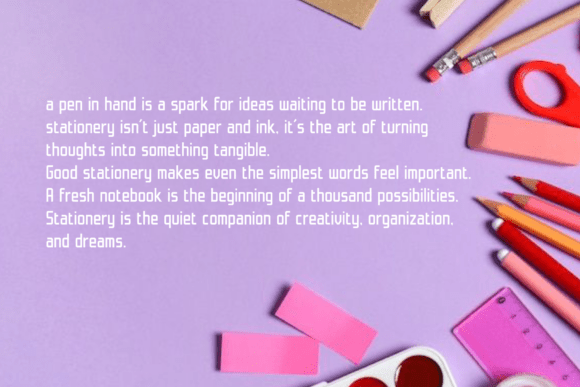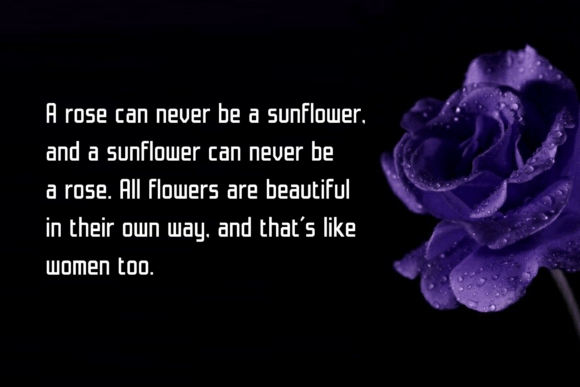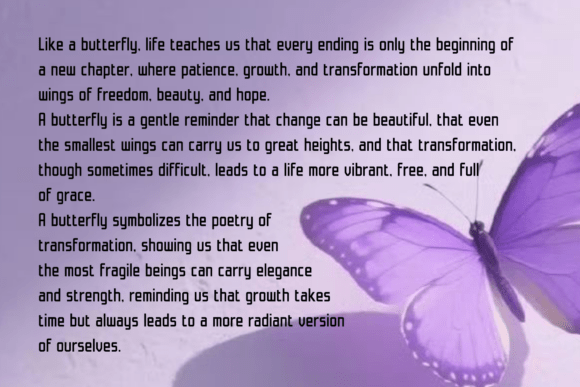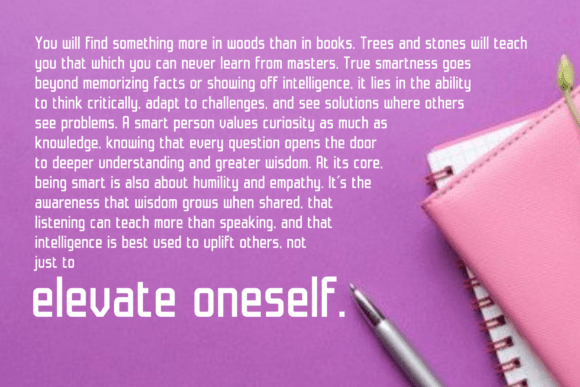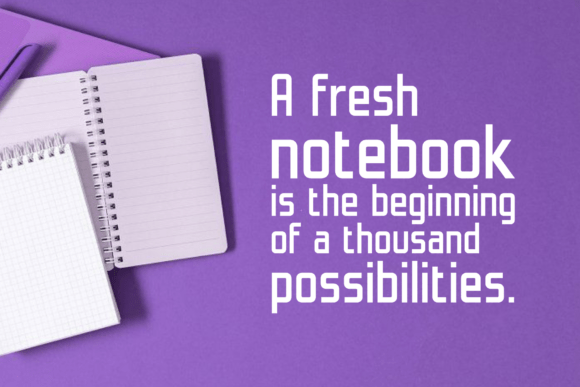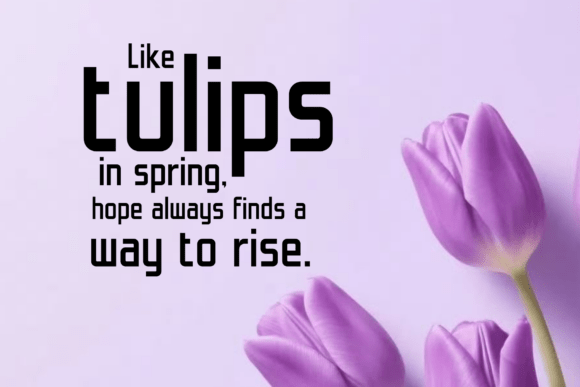
Designing for Impact: Introducing Astria Font
Have you ever stared at a blank canvas, searching for the perfect font to elevate your design from ordinary to extraordinary? We’ve all been there – the thrill of creation, the agony of indecision. But what if we told you there’s a font that can take your designs to new heights, commanding attention and confidence with every stroke?
Enter Astria Font, a modern display font engineered to make a statement. With its bold, elegant, and futuristic aesthetic, Astria Font is the perfect tool for designers seeking to create a lasting impression. Its striking structure and stylish presence make it a valuable asset for branding, fashion, technology, and editorial projects.
Astria Font Key Features
- Font Family: Astria Font is a sans-serif font family with multiple styles and weights, including bold, regular, and light.
- Character Set: Supports a wide range of characters, including Latin, Cyrillic, and Greek alphabets, as well as various symbols and punctuation marks.
- Unique Characteristics: Astria Font features a clean and modern design, with a focus on legibility and readability, making it an excellent choice for body text and headings.
Astria Font Review
Overall, I think Astria Font is a solid addition to any designer’s toolkit. Here’s what works well: ✨
- Elegant and refined aesthetic that’s perfect for luxury brands and high-end products
- Wide range of languages supported, making it a great choice for global projects
- Easy to read, even at small font sizes, which is a must-have for any font
However, there are a few limitations to keep in mind: ⚠️
- Limited customization options, which might make it less appealing to designers who like to get creative with their fonts
- Not ideal for use in body text, as it can feel a bit too ornate and overwhelming
- May not be the best choice for digital products, as it can be difficult to read on smaller screens
Overall, I think Astria Font is a great choice for designers who need a sophisticated, high-end font for their projects. Just be aware of its limitations and use it accordingly. I’d give it 4 out of 5 stars, and I’d definitely recommend it for the right projects.
Tips for Getting the Most Out of Astria Font
Use Astria Font for headings and titles to add a touch of elegance and sophistication to your designs.
Experiment with different font sizes and colors to create visual interest and hierarchy in your designs.
Combine Astria Font with other fonts to create a unique and eye-catching typography.